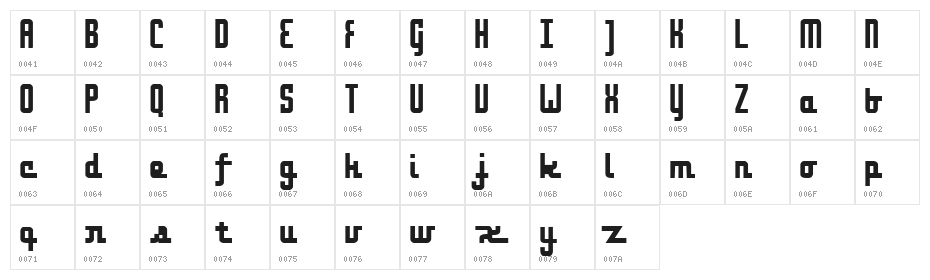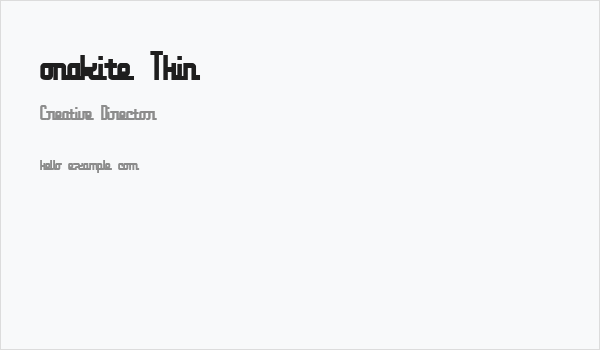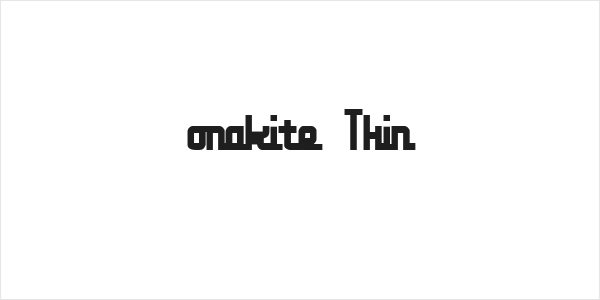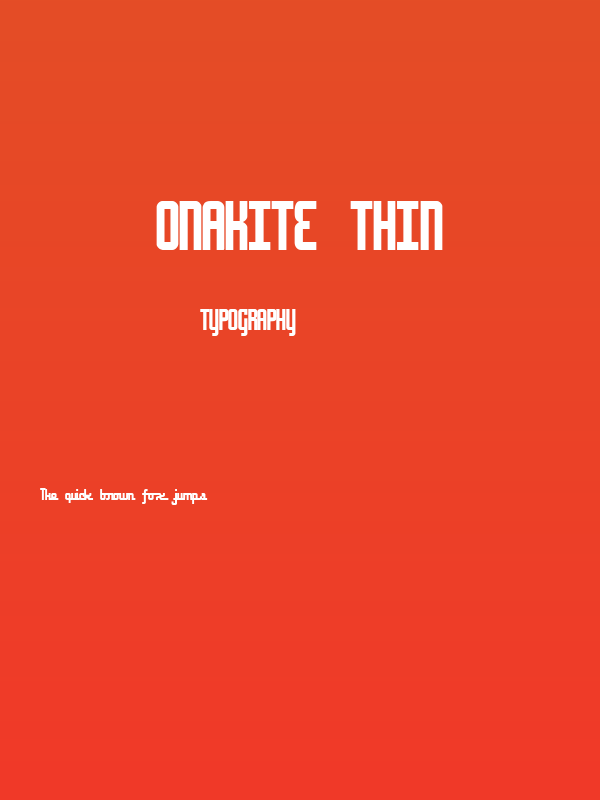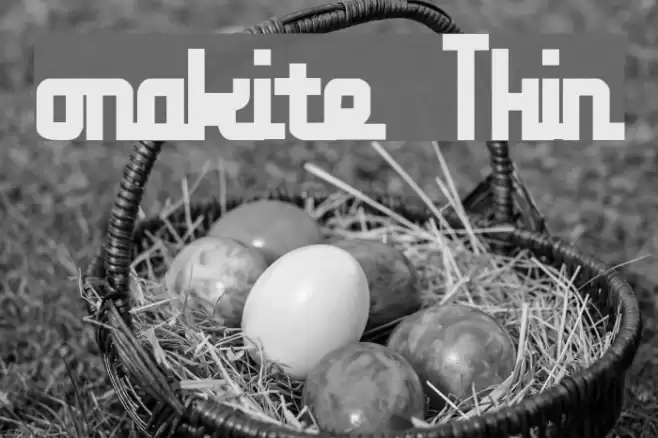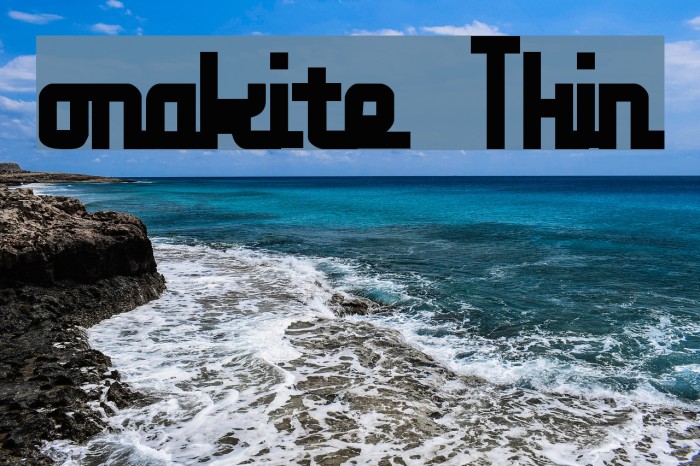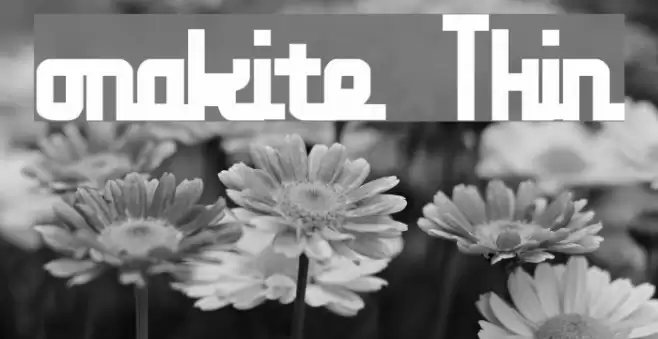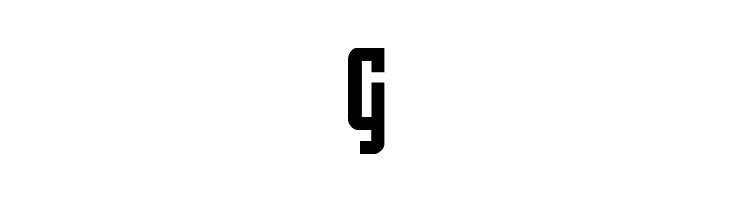
onakite Thin Font
onakite Thin Description
This font features a bold, geometric style with a strong presence. The uppercase letters are blocky and uniform, creating a sense of stability and strength. The lowercase letters maintain the geometric theme but introduce some unique curves and angles, adding a touch of modernity. The numbers are consistent with the overall design, ensuring readability while maintaining the font's distinct character. Special characters are crafted to match the bold and structured aesthetic, making them stand out effectively. This font is ideal for projects that require a strong visual impact.
| Proposed Projects | Ideal for branding, posters, headlines, and any project needing a bold statement. |